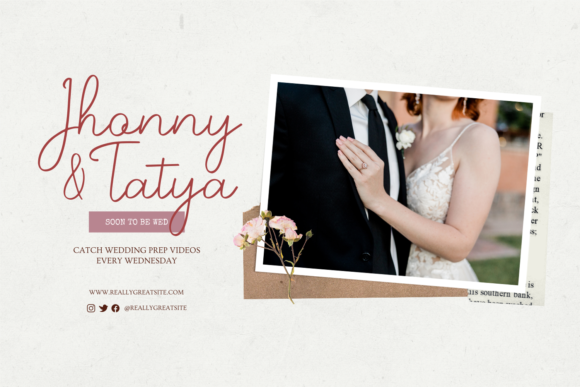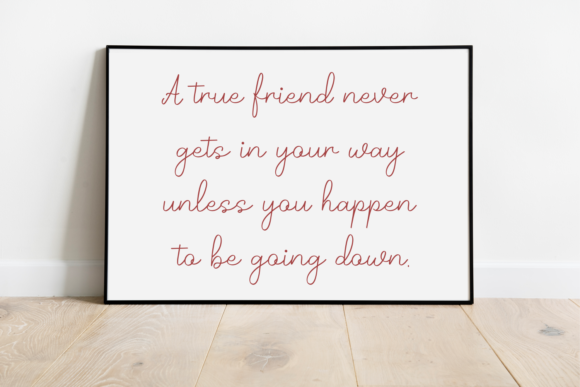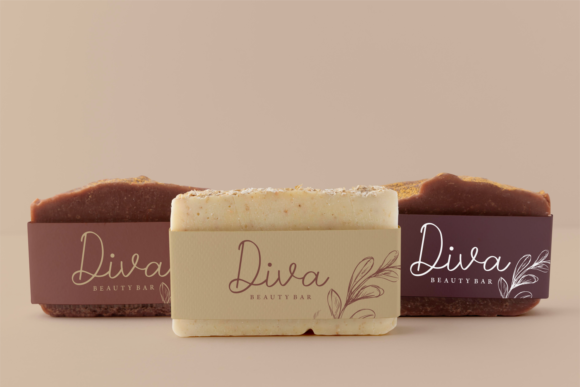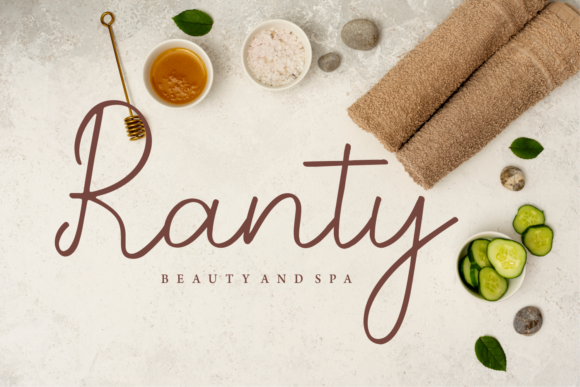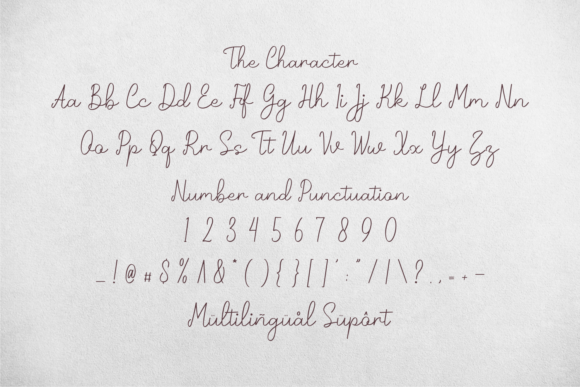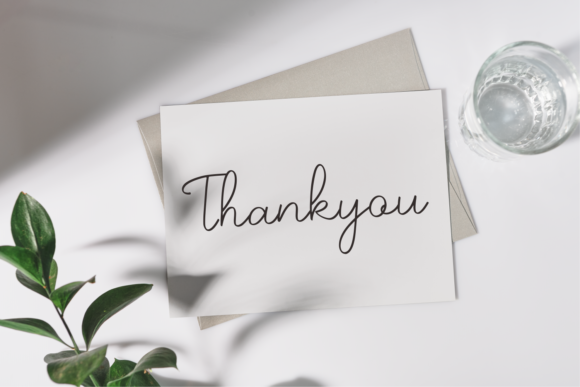
Introduction to Letteriot Font
Remember that moment when you’re working on a creative project and you’re searching for the perfect font to make it stand out? You’ve got a clear vision in your mind, but the right words just won’t come together until you find the perfect typography. For designers, this is a daily challenge, and it’s what makes our job so exciting.
That’s where the Letteriot Font comes in – a beautiful, elegant script font that’s designed to make your branding shine. With its unique and beautiful touch, this font is perfect for headings, logos, ads, printed quotes, packaging, and even your website or social media branding.
Key Features of Letteriot Font
- High-quality design resource for creative projects, perfect for those seeking a unique and stylish font.
- Unique characteristics: the Letteriot Font has a distinctive, hand-drawn feel with intricate details, making it perfect for adding a touch of elegance to any creative project.
Honest Review: Letteriot Font
As a designer, I’m always on the lookout for high-quality design resources to elevate my creative projects. Recently, I came across the Letteriot Font, and I’m excited to share my honest review.
- Unique and elegant design: The Letteriot Font boasts a distinctive, hand-drawn aesthetic that sets it apart from other fonts.
Overall, I’m impressed with the Letteriot Font’s unique design and high-quality vectors. While it may have some limitations, it’s a great resource for designers looking for a distinctive font to elevate their creative projects. I’d definitely recommend it for free download and experimentation.
The Letteriot Font is a versatile design resource that offers a high-quality, elegant look for creative projects. With its transparent background, it can be easily layered over images or other design elements.
To get the most out of the Letteriot Font, use it in combination with other design elements, such as images and graphics, to create visually appealing designs.
The Letteriot Font is suitable for a variety of creative projects, including:
- Business cards and branding materials
- Designs for social media and websites